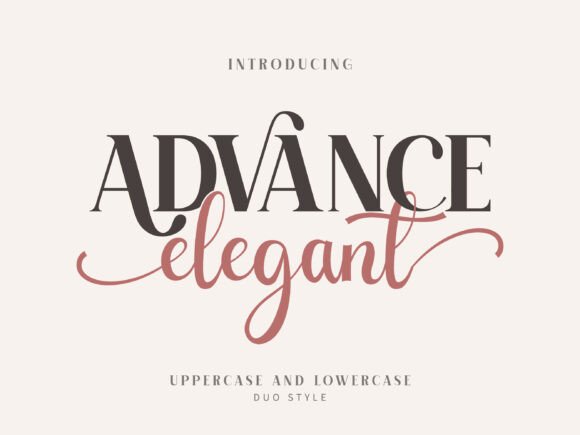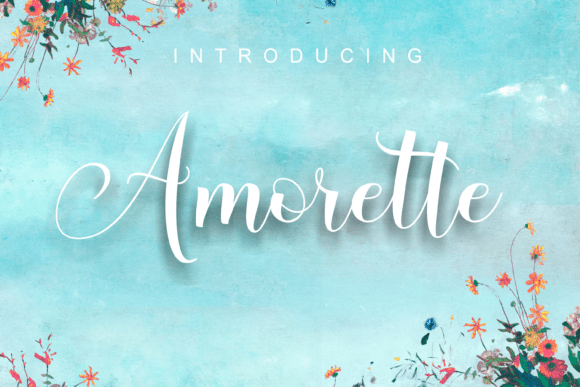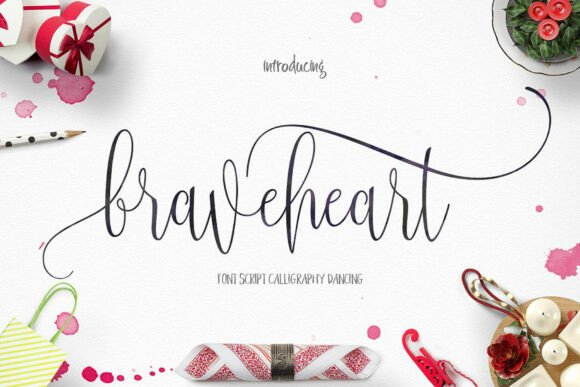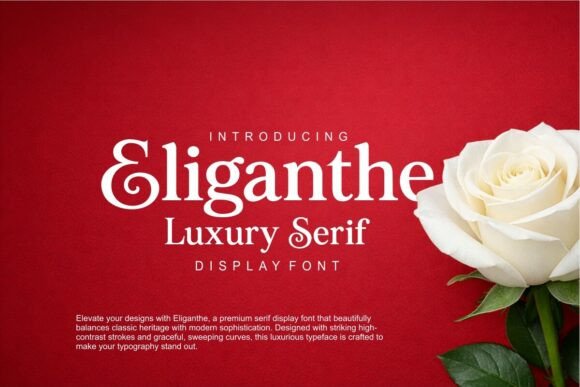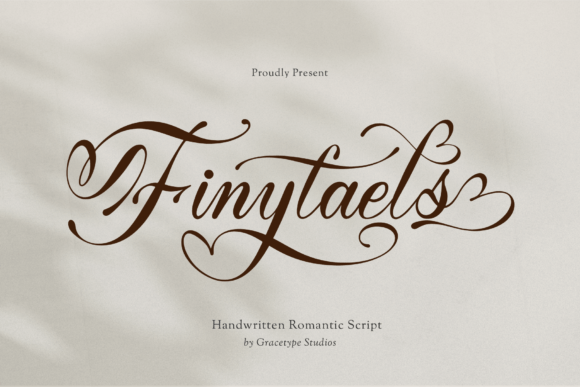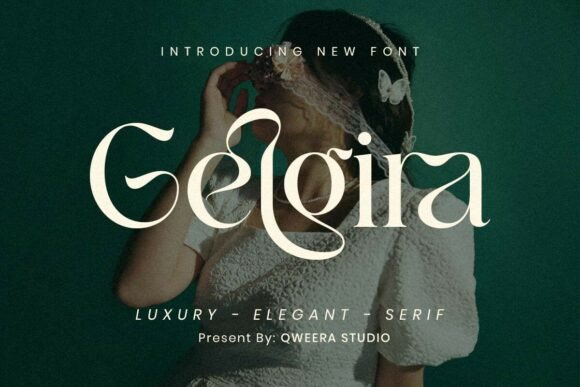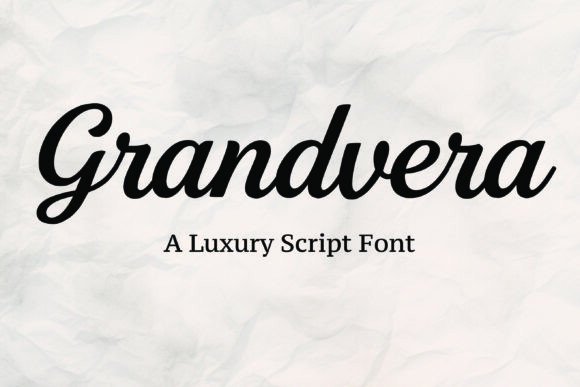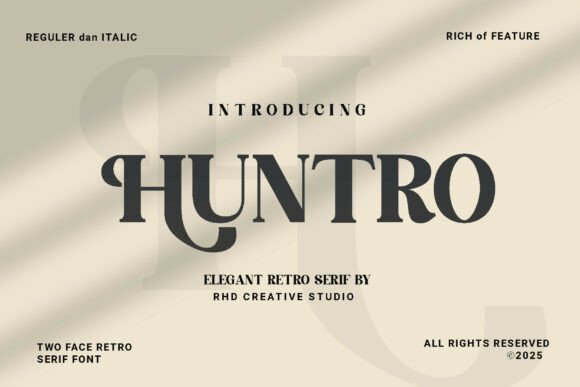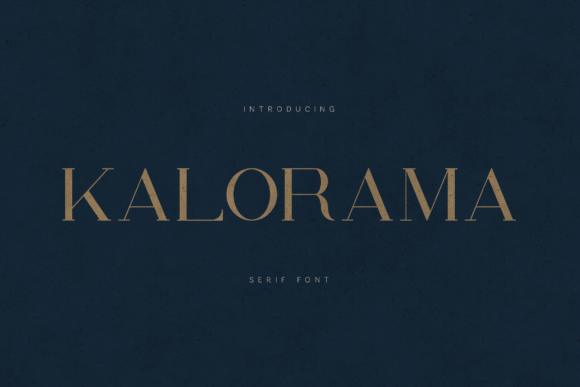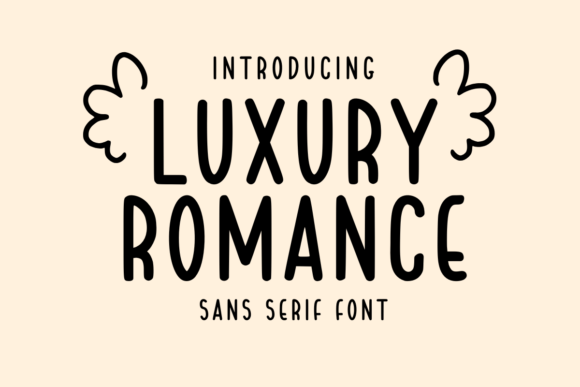
Elegant Fonts in 2026: 16 Beautiful Typefaces I Keep Reaching For
People throw the word elegant at almost any pretty font, but the ones that actually read as refined have something in common: restraint in the right places and detail in the others. I pulled together 16 elegant fonts I keep coming back to in 2026, across serifs, scripts and a couple of sans faces, and noted where each one earns its place. If you want to go deeper later, these all sit inside the broader rules of good typography.
A quick note before the picks: nearly everything here is a display face, meant for names, headlines and short lines. For longer text I lean on one of the calm sans options and let the showy face do the talking. If you want a category-by-category deep dive, I split these themes into separate guides, including luxury serif fonts, romantic calligraphy fonts and elegant wedding fonts.
Elegant fonts with a soft, floral lean
These read warm and a little romantic rather than austere, which suits beauty, florals and lifestyle work.
Roses Garden
Roses Garden opens the list because it does something most serifs here don’t: it works in a warm coral-orange by default, which sets a softer, more floral tone than the usual black on white. The letterforms are modern with gentle flourishes on the capitals, so it reads as decorative without tipping into fussy. I’d use it for a florist logo, a perfume label, or the cover of a spring lookbook. Pair it with a quiet sans for body copy and let the headline carry the personality. Keep it at display sizes; the detailing fades under about 24px.
Gelgira
Gelgira is a modern romantic serif with swashes that extend off the capitals and a noticeable thick-to-thin contrast. It lands somewhere between a branding face and an editorial one, comfortable on a boutique logo or a magazine standfirst. The swashes are the signature feature, so use them where there’s space to let them open up rather than crowding them into a tight lockup. For body text I’d switch to a calmer companion and let Gelgira handle the headline. It suits beauty, fashion, and wedding stationery especially well.
Matreal
Matreal is a modern serif with teardrop terminals and a softly calligraphic feel, so it bridges the gap between a script and a straight serif. The curves give it warmth without losing the structure you need for longer text. I’d use it for an organic skincare brand, a boutique hotel, or a recipe book where the type should feel handcrafted but still legible. It holds detail down to mid sizes, which is more forgiving than the steep-contrast display faces. Pair it with a simple sans for captions and let Matreal set the tone in headers.
Megarin
Megarin is a display serif with a vintage streak, the kind of face that nods to old signage and book jackets without feeling like a costume. The shapes are classy and a little decorative, good for a wordmark that wants some history behind it. I’d put it on a bakery sign, a perfume label, or a chapter heading. It has a clear, readable structure, so it survives at slightly smaller sizes than the hairline serifs here. Pair it with a clean sans and it reads as considered rather than fussy.
High-contrast display faces for headlines
Steep thick-to-thin contrast gives a layout that polished, fashion-magazine snap. Keep them large so the hairlines hold.
Eliganthe
Eliganthe is a display serif with real backbone. The contrast between thick stems and hairline serifs is steep, which gives headlines a polished, fashion-magazine snap. It carries a classical skeleton but the proportions feel current, so it suits both a heritage brand and a newer label that wants to look established. I reach for fonts like this on editorial spreads, title pages, and packaging where one strong word has to do the work. Set it large and tracked slightly open; cramped, the fine serifs start to fight each other.
Roseta
Roseta is a thick, balanced display serif made for short bursts of text that need to look high-end. The weight is fairly even, so instead of delicate hairlines you get solid, confident letterforms that read clearly even at a glance. That makes it a good fit for poster titles, book covers, and logo wordmarks. It has enough character to stand alone, so I wouldn’t bury it in a busy layout. Set one or two words large, give them space, and pair anything finer for the details.
Quiet Lumie
Quiet Lumie lives up to the first half of its name and ignores the second: it’s a restrained, high-contrast serif with thick verticals and fine connecting strokes. The effect is quietly luxurious, the sort of type you see on a jewelry box or a wine label. It photographs well against both pale and dark backgrounds, so it’s flexible for packaging mockups. Because the contrast is steep, keep it at headline sizes and avoid thin printing on textured stock where the hairlines can drop out. A plain sans handles the rest.
Kalorama
Kalorama font preview
Kalorama is the workhorse luxury serif of this lineup: high contrast, classical roots, and proportions tuned for branding and editorial layouts. It looks expensive without trying too hard, which is exactly what you want on a fashion logo or a magazine spread. The hairlines are fine, so it rewards larger sizes and good printing. I’d anchor a brand system around it and pair it with a neutral sans for everything functional. If I had to pick one face here for a high-end identity, Kalorama would be on the shortlist for its mix of polish and flexibility.
Quiet, modern sans for the base
Every ornate face needs a calm partner. These two handle body copy and small print while the display faces lead.
Luxury Romance
Luxury Romance font preview
Luxury Romance is the calm one in this group: a clean sans serif with soft, balanced shapes and no decorative noise. That restraint is its strength, since it gives romantic projects a modern, uncluttered base that won’t compete with a fancier display face. I’d use it for body copy on a wedding website, the supporting text on minimalist packaging, or a quiet logotype. It pairs naturally with any of the scripts here, carrying the small print while they handle the headline. Generous letter spacing keeps it feeling premium rather than plain.
Modern Romance
Modern Romance font preview
Modern Romance is a sans with a high-fashion attitude: narrow proportions, even strokes, and a cool, editorial calm. Where Luxury Romance feels soft, this one feels sharper and more runway-ready, which makes it a strong pick for a fashion label, a beauty line, or a magazine masthead. Set in all caps with open tracking, it looks expensive and confident. It also works well as a contrast partner to a flowing script, the plain face grounding the ornate one. Keep layouts spare so its restraint does the talking.
Script that still feels current
Handwriting that reads modern rather than old-fashioned, good for names, cards and a personal touch.
Adelia
Adelia font preview
Adelia is a calligraphy script that sits high and low across the baseline, with letters that lean and swing rather than march in a straight line. That movement is the whole point: it feels handwritten and a little sweet, the kind of thing you’d letter onto a save-the-date or a candle label. The thin connecting strokes give it a delicate look, so it pairs nicely with a sturdier serif for contrast. Watch the line spacing, since the tall loops can collide. Best for short, romantic phrases rather than full paragraphs.
Finytaels
Finytaels font preview
Finytaels is fluid cursive with long, sweeping connectors that tie one letter into the next. It has a confident, almost ribbon-like flow, which makes it feel personal rather than mechanical. The descenders stretch out, so it shines as a one-line statement across an invitation or a romantic quote print. There are alternate letterforms in the family, handy when two of the same letter sit side by side and you want to avoid an obvious repeat. Give it breathing room above and below, and keep body text in something plainer.
Amorette
Amorette font preview
Amorette is a romantic calligraphy script built around rounded curves and tidy swashes. It reads as friendly and a little dreamy rather than formal, which makes it a comfortable choice for greeting cards, packaging, and social posts. The swash alternates let you finish a word with a flourish or keep it plain, depending on the layout. Because the strokes stay fairly even in weight, it holds up slightly better at smaller sizes than the hairline scripts here. Pair it with a simple serif or sans and it sits happily as the accent.
Madison Sauvage
Madison Sauvage font preview
Madison Sauvage blends a classic serif structure with a calligraphic script, so within one family you get both a steady, heritage-leaning face and a hand-lettered partner. That makes it a smart all-in-one for branding work, where you might set a label name in the script and the tagline in the serif. The script has a refined swing rather than a loud one, which keeps the whole thing grown-up. It suits boutique fashion, stationery, and editorial covers. As always with mixed families, test the script at the smallest size you plan to print.
Hello Beautiful
Hello Beautiful font preview
Hello Beautiful is a modern handwritten script with the loose, affectionate rhythm of a note written by hand. It leans into a chic, love-letter mood, so it suits cards, beauty packaging, and quote prints aimed at a softer audience. The connecting strokes vary a touch in weight, which keeps it feeling genuine rather than traced. Use it for a name or a short line; in long paragraphs the personality starts to wear. It pairs cleanly with a quiet sans, which carries the smaller copy while it handles the greeting.
Advance Elegant
Advance Elegant font preview
Advance Elegant is really two voices in one purchase: a high-contrast serif and a flowing script that share the same family. That pairing is genuinely useful, because you can set a name in the script and the supporting words in the serif without hunting for a second typeface that matches. The script half has a romantic swing; the serif half keeps things readable. I’d use it on a wedding suite or a salon brand where you want both a signature feel and clean information. Mind the script’s legibility at small sizes.
If I had to pick one face to build a whole identity around, it would be Kalorama for the structure and Modern Romance for the body text. Pair those two and you can carry a brand from a logo all the way down to the footer. Browse the rest by mood in the modern minimalist fonts guide when you want something quieter.
Quick answers
Are these elegant fonts free for commercial use?
Most come with a commercial license through Creative Fabrica, but always read the license on each product page before using a font in paid client work.
Which elegant font works best for a logo?
For a logo you usually want clarity at small sizes, so a clean serif like Kalorama or a quiet sans like Modern Romance tends to beat a fine-stroked script.
Can I pair two of these fonts together?
Yes. It often looks best to put one display serif or script with one plain sans, letting the decorative face handle the headline and the simple one carry the body text.